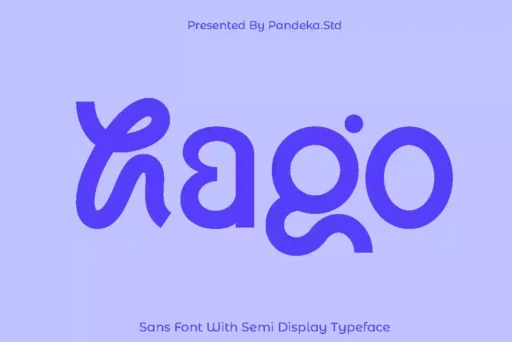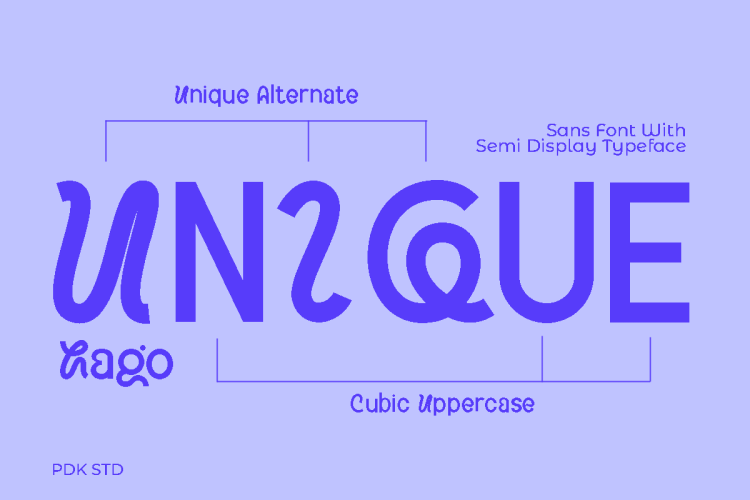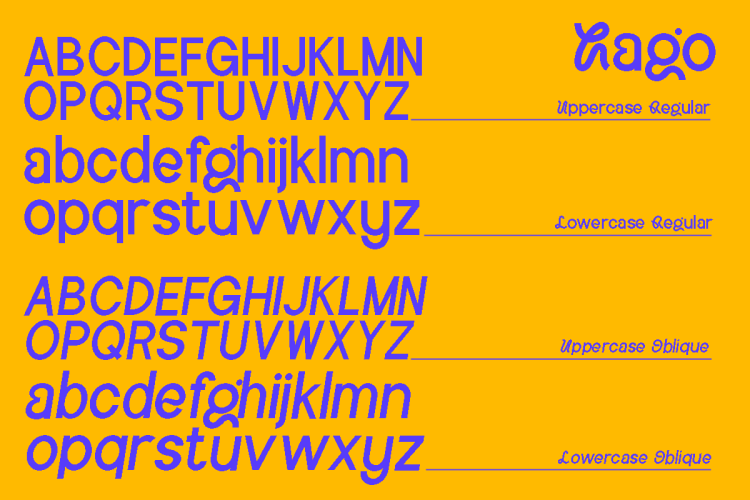
Hago Font
Hago is a simple and fun font that includes both serious and humorous in its design. Thanks to the strong sans serif upper case and the playful cursive lower case, Hago allows for a great deal of style versatility.
Just use capital letters for a bold and sharp look of the letter or lowercase for a more playful serif.
Where Hago Font works best
Hago Font is built for size: event posters, hero headlines and billboard-style layouts.
High contrast display type like Hago Font reads instantly in thumbnails and motion graphics.